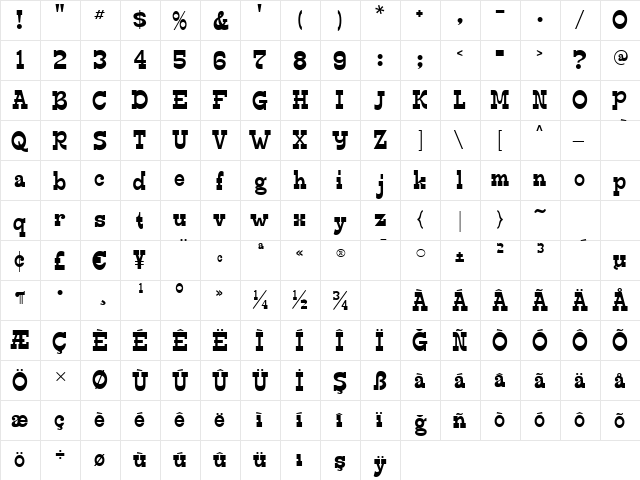
TR Edmunds Regular
Design Context for TR Edmunds Typeface
TR Edmunds is a composed and adaptable typeface that performs quietly and consistently across a wide range of design contexts.